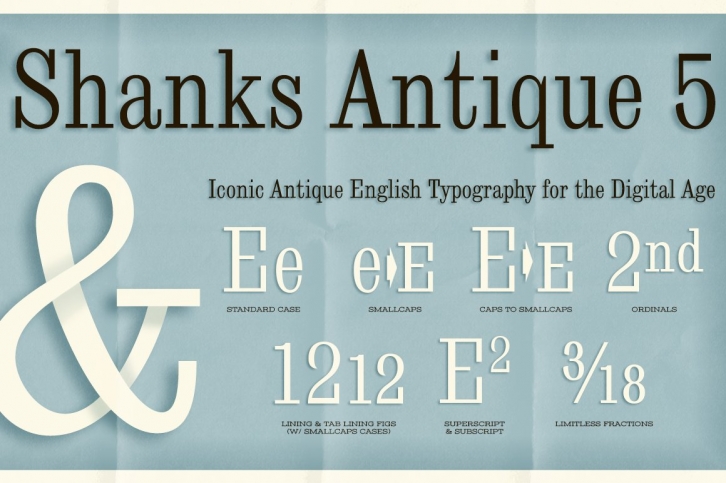
Shanks Antique 5 Pro is an iconic antique English typestyle rooted in tradition. It is the historical revival and elaboration of the "Antique No. 5" typeface created by Stevens, Shanks & Sons in 1865. What began as a basic character set of Capitals, lowercase, numerals, and a small handful of punctuation characters has been expanded to a full character set including unlimited fractionals, superiors & inferiors, ordinals, tabular & proportional figures, and an expanded language glyph set, all with a smallcaps and Caps to Smallcap set to match. Reviving history looks and feels good. Perfect for wedding invitations, historical ephemera recreations, and classically elegant text settings.
Extensive language support. Invocation has accented and special characters that support the following languages: Afrikaans, Albanian, Basque, Bosnian, Breton, Catalan Cornish, Corsican, Croatian, Czech, Danish, Dutch, Embu, English, Esperanto, Estonian, Faroese, Filipino, Finnish, French, Galician, German, Hungarian, Icelandic, Irish, Indonesian, Italian, Kurdish, Leonese, Luxenbourgish, Malay, Maltese, Manx, Maori, Meru, Morisyen, North Ndebele, Norwegian Bokmål, Norwegian Nynorsk, Nyankole, Occitan, Oromo, Polish, Portuguese, Rhaeto-Romanic, Romanian, Scottish Gaelic, Scots, Serbian (Latin), Slovak, Slovenian, Spanish, Swahili, Swedish, Tagalog, Turkish, Walloon, & Welsh.
One of my guilty pleasures is in taking the time to recreate historical typefaces as digital fonts, and expand on their character sets to enable them to be used more widely than their limited originals. A lot of incredible historical typestyles created as wood or metal type with bare bones character sets have been lost or only exist as limited specimen proofs in old books. These typefaces may have more niché uses than modern typefaces, but I believe it is important nonetheless to preserve these typefaces for future generations. These typefaces, if nothing else, can often inspire new creations.